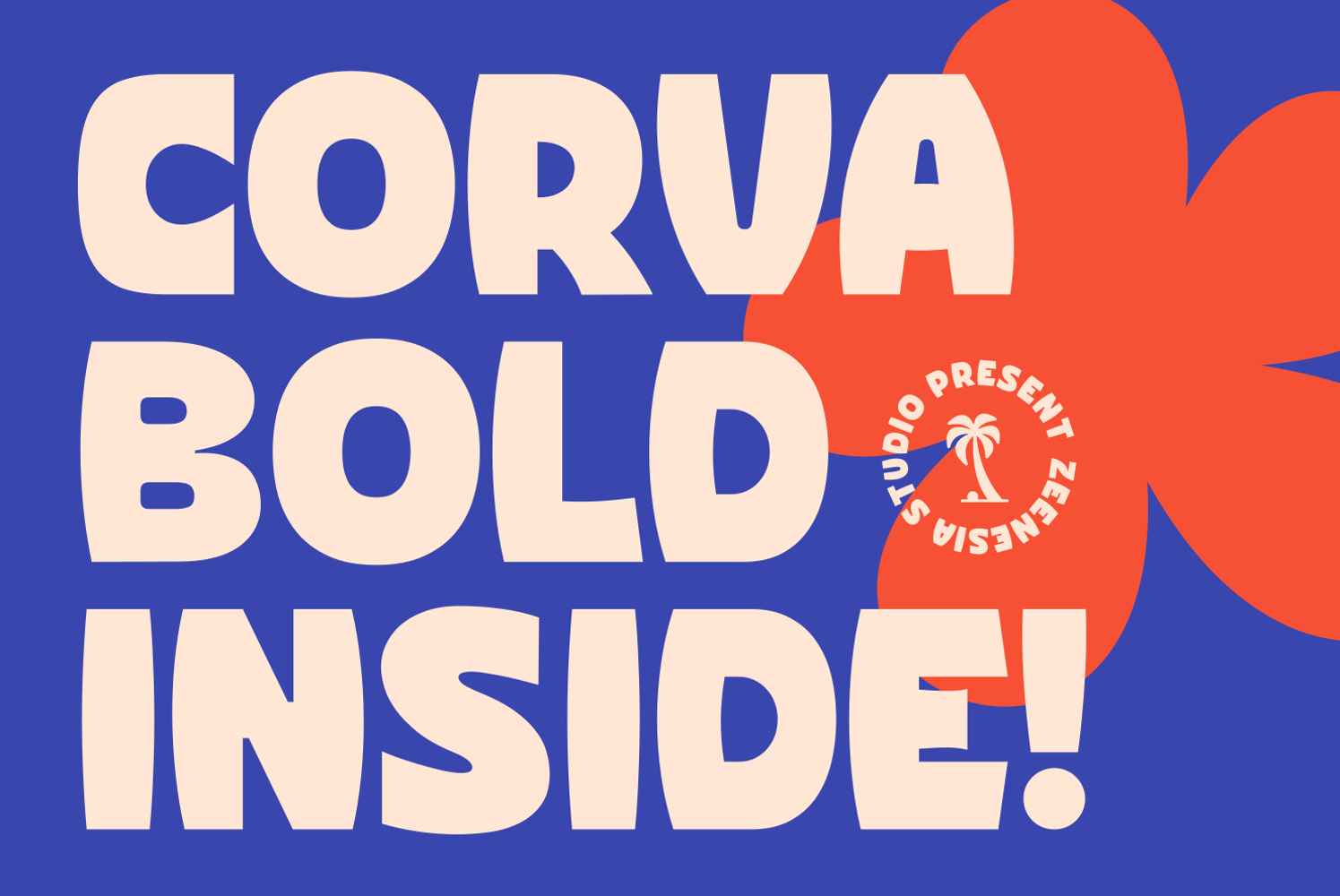
Curva Bold Inside
Corva Bold Inside is a bold display font featuring strong shapes and smooth curves that create a playful yet confident look. Designed to capture attention, it works perfectly for headlines, branding, posters, packaging, and modern design projects. Its chunky letterforms give your typography a bold and energetic personality.
• Logos & Branding
• Posters & Headlines
• Packaging Design
• Social Media Graphics
• Editorial Layouts